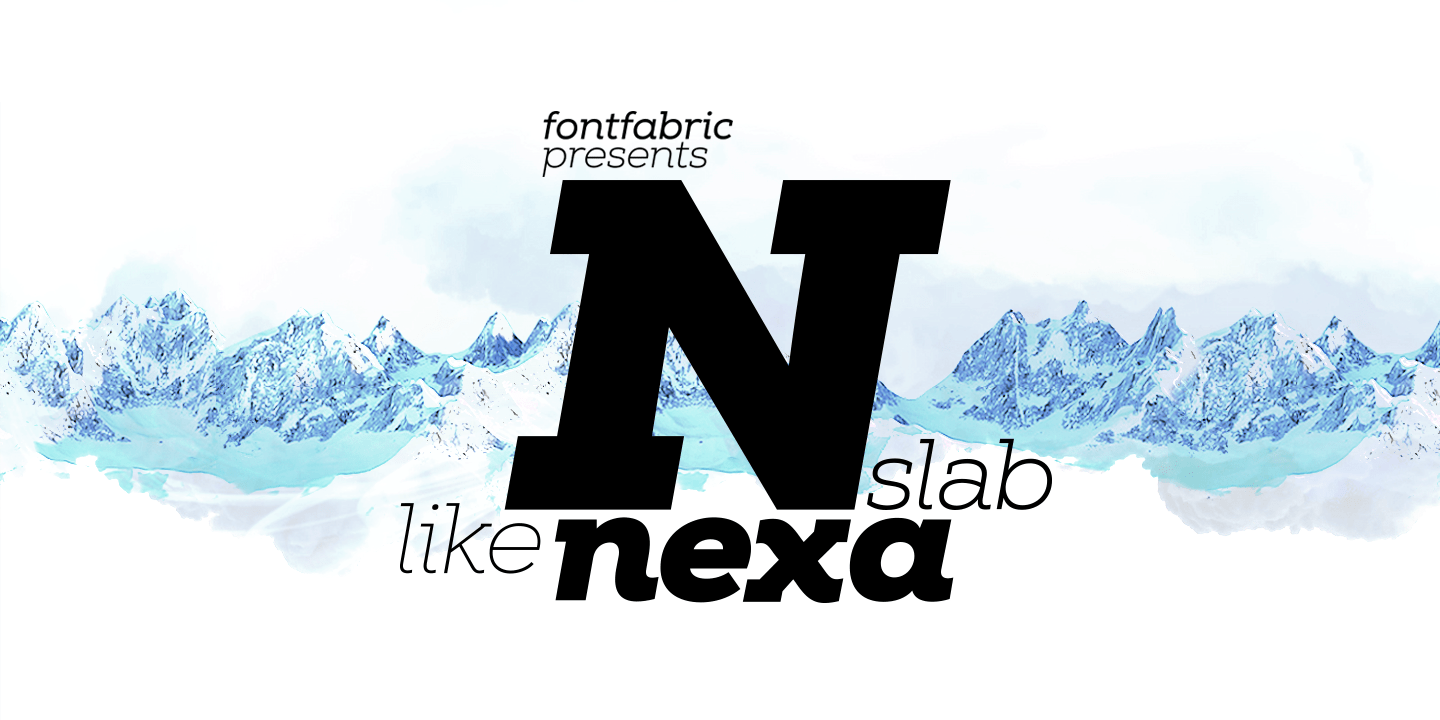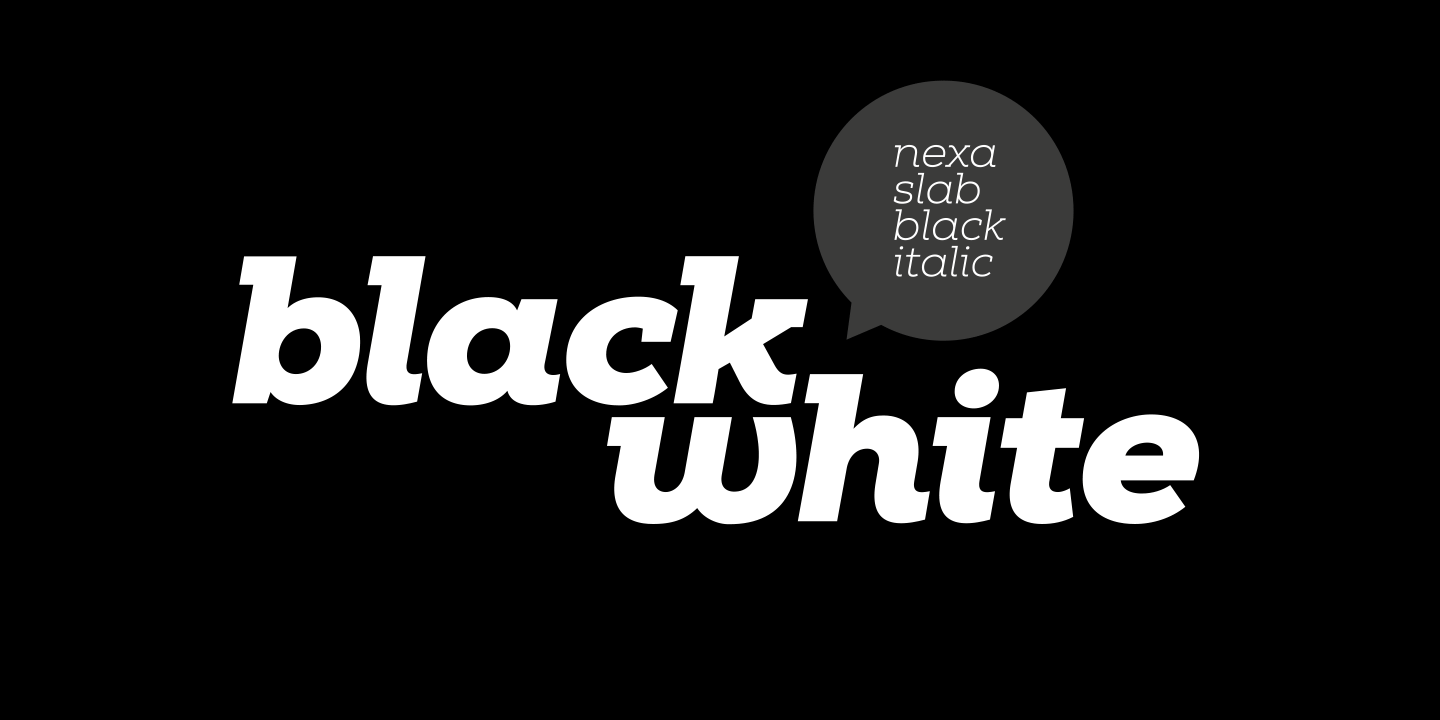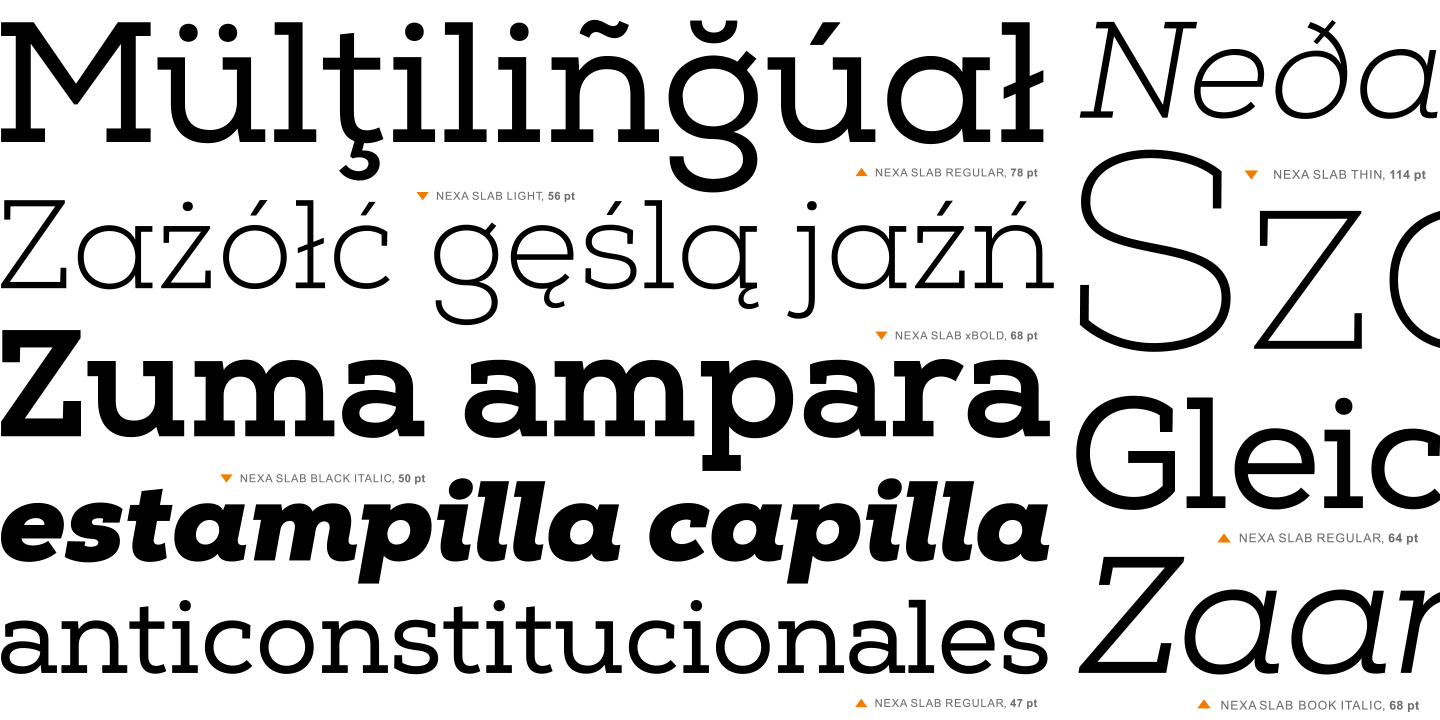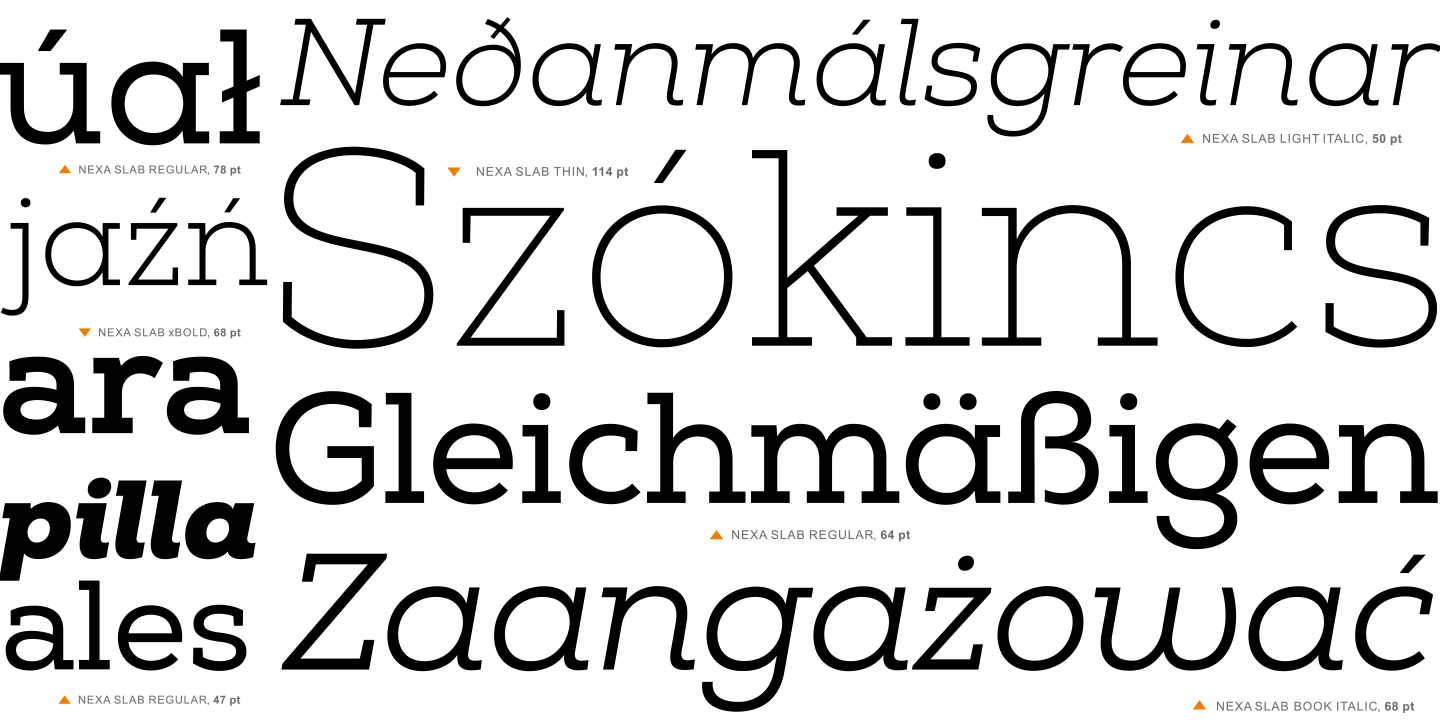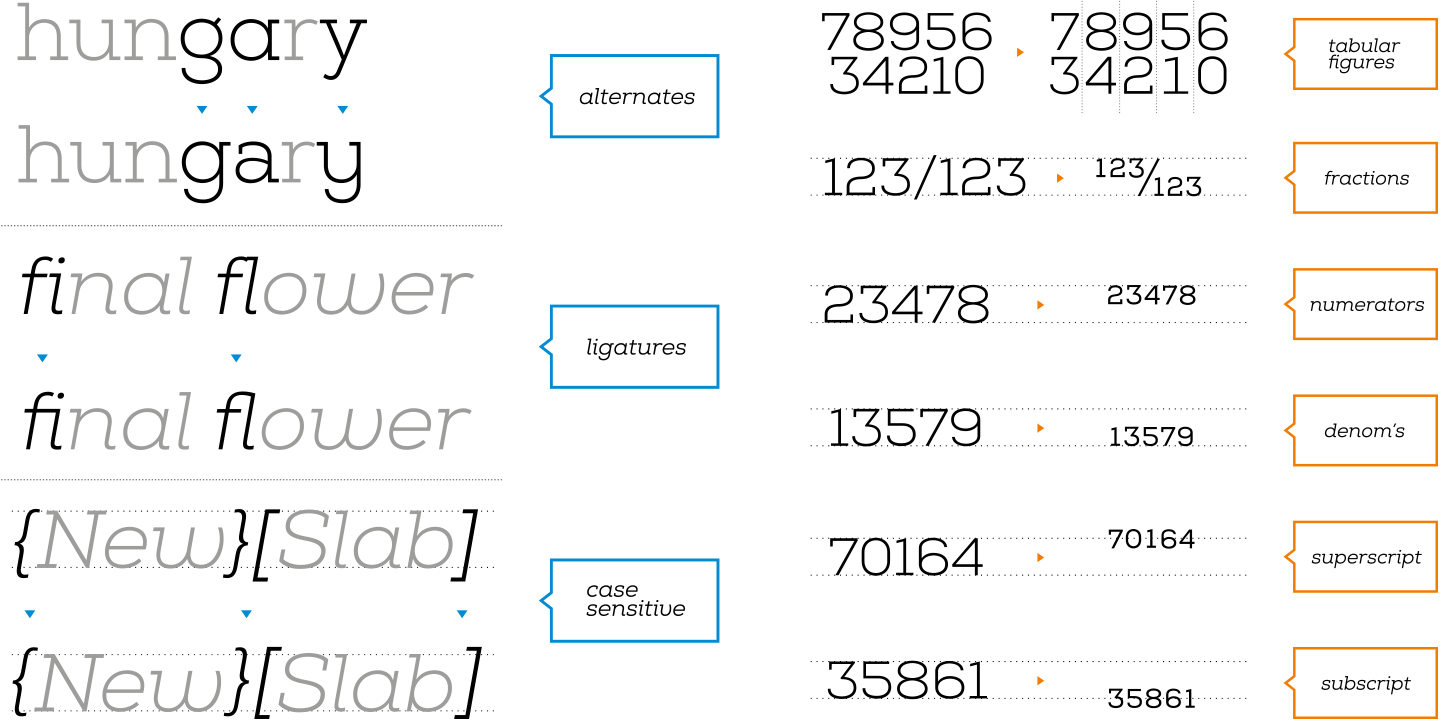
Nexa Slab
Font Family by Fontfabric
Nexa Slab is a geometric slab serif font whose design is based on the already popular best-seller Nexa.
The font family contains 3 basic forms: italics, obliques and uprights, each of which has 8 different weights. This visual richness makes it the ideal slab serif font family for the web as well as for print, for motion graphics, logos, t-shirts and so on. It is also great for headings, fitting nicely with both small and large typesetting text blocks.
Nexa Slab draws from the rich traditions of the classic Neo-Grotesque slab serif fonts such as Lubalin Graph, Rockwell and Memphis, which conceal the richness of typesetting text in its crucial advertising function. Just like these fonts, it's design is subject to rational, carefully thought-out, thick and thin bars with a low contrast between them. The letters are characterized by the strict geometry and square proportions of the original, extra-fortified by suitably balanced slab serifs.
Nexa Slab is serious without being rigid and inflexible, finished and lacking in nothing, systematic without being monotonous, and though it may seem at first glance to be more suitable for short, direct messages; in the hands of a master designer... it can build and create exquisite and harmonic designs.
Open Type Features:
Lining figures (proportional and tabular)
The ?f? ligature set
Alternate characters (a, g, y)
Automatic fractions
Automatic numerators
Automatic denomerators
Automatic subscript and superscript
Automatic ordinals
Extended language support (most Latin-based scripts supported)*